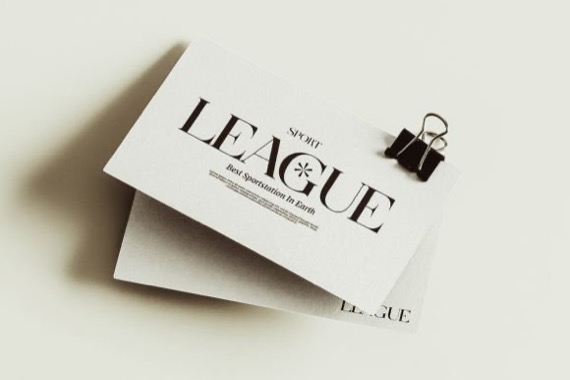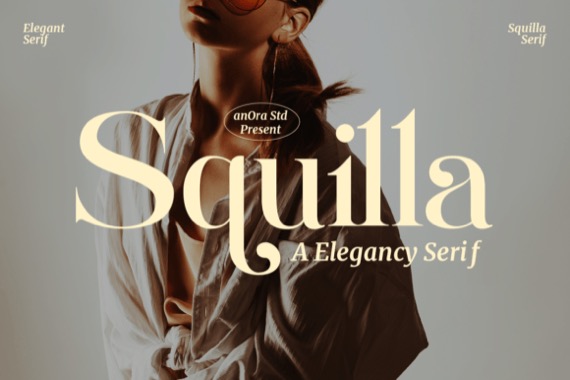
Squilla Font by has come with a classy regular style along with Truetype & Opentype both file formats. It exuding timeless charm and refined style. This typeface offers a touch of flair with its stylistic alternates, providing flexibility for creative expression. Elevate your projects with Squilla’s graceful serifs and tasteful design, making it the perfect choice for adding a touch of classic beauty to your typographic endeavors.
Squilla Serif Font
Designer, Publisher: anOra